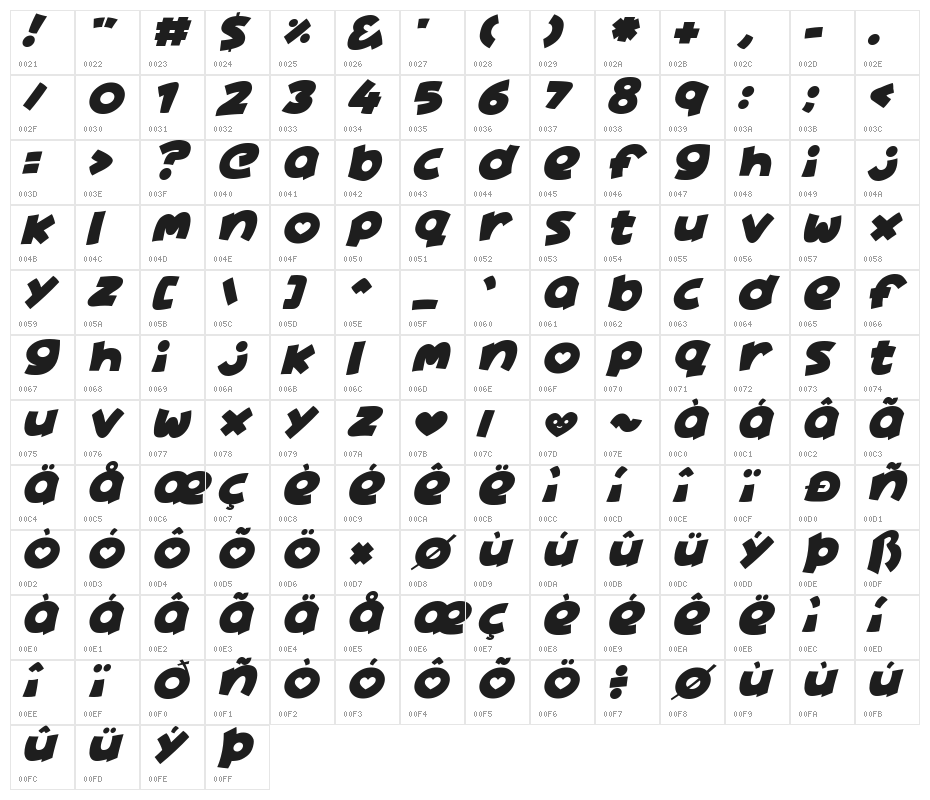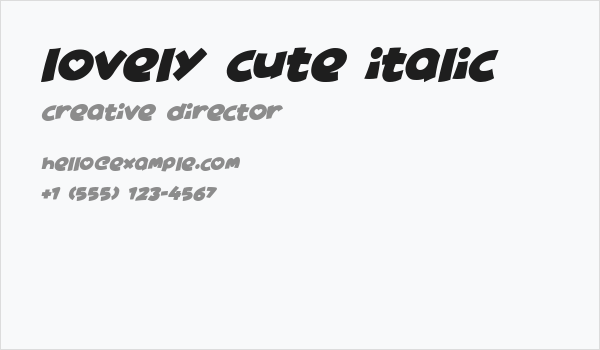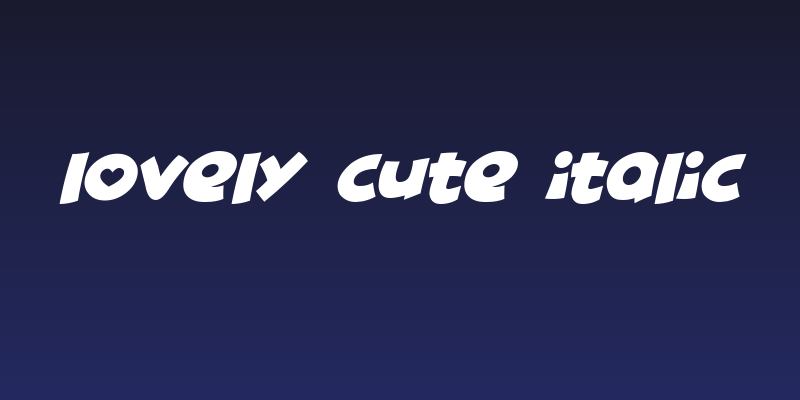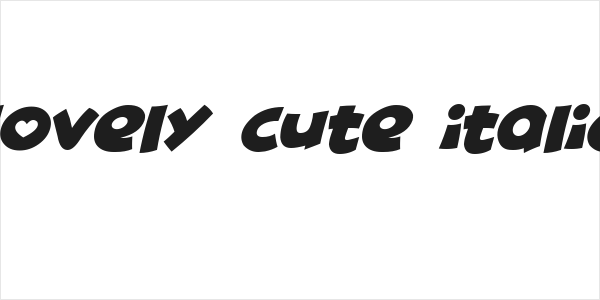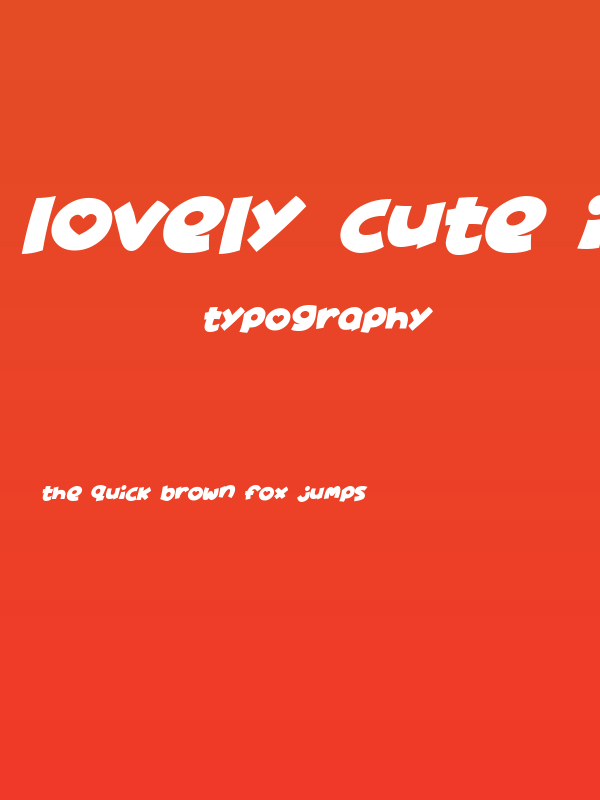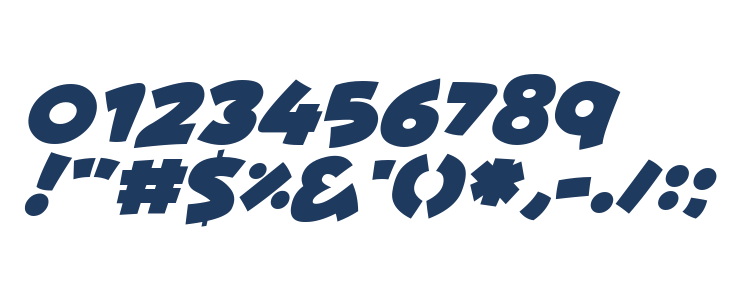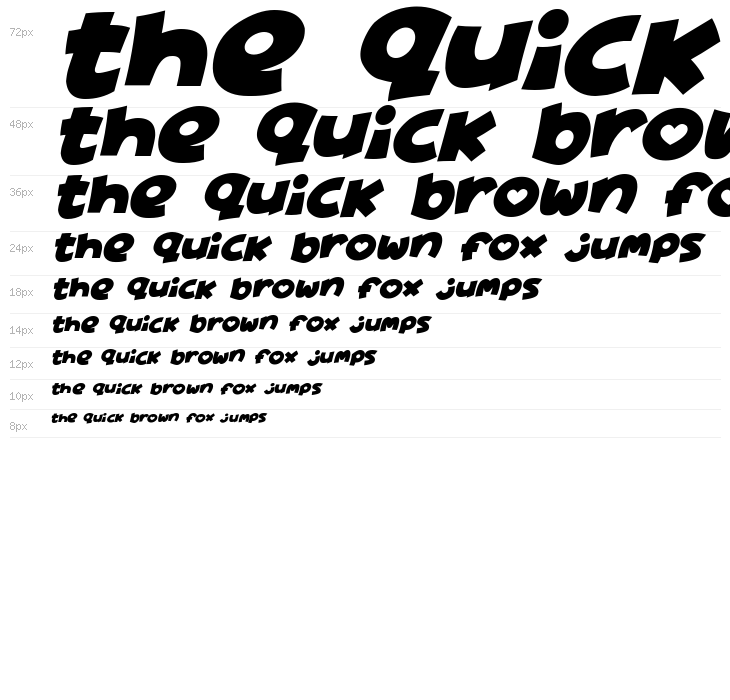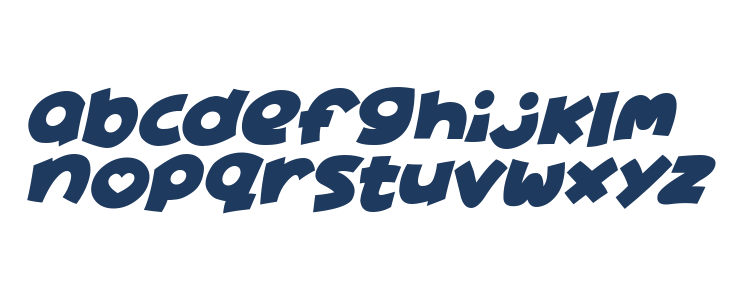
Lovely Cute Italic Font
Lovely Cute Italic Description
This playful and bold font features a unique, whimsical style with a strong italic slant. The characters are rounded and chunky, giving them a friendly and approachable appearance. The exaggerated curves and angles add a sense of movement and energy, making it ideal for designs that aim to capture attention and convey a sense of fun. The font maintains consistent thickness throughout, ensuring readability while adding a touch of charm. Its distinct style makes it suitable for creative projects where a lively and engaging typeface is desired.